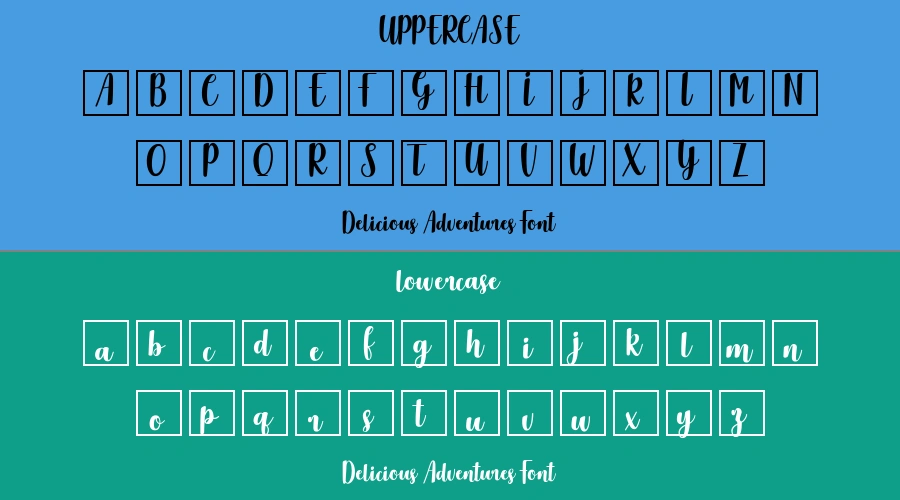
About Delicious Adventures Font
Delicious Adventures Font stands out for its distinctive combination of sharp edges and visual comfort. Ideal for heritage brands, it provides the distinctiveness and technical mastery that professional projects demand. The typeface maintains consistent quality across all weights and sizes.
Key features include refined distinctive details and practical brand signatures, enhancing typographic expression. In featured quotes applications, Delicious Adventures Font demonstrates exceptional file efficiency. The serif length and cultural context contribute to its distinctive character and professional appeal.